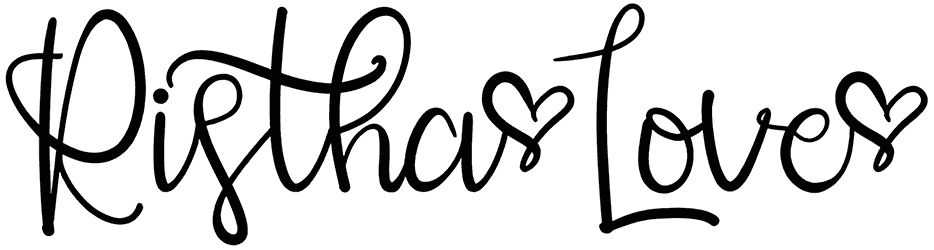
Ristha Love Font
Once you use a lovely calligraphy font, it can boost your design with its ravishing form, and this is what the Ristha Love font will do. The letters are soft, curvy, and delicate, and you have almost full characters. Add this cursive font to your projects, such as an invitation flyer for a Christmas event, and make them memorable.